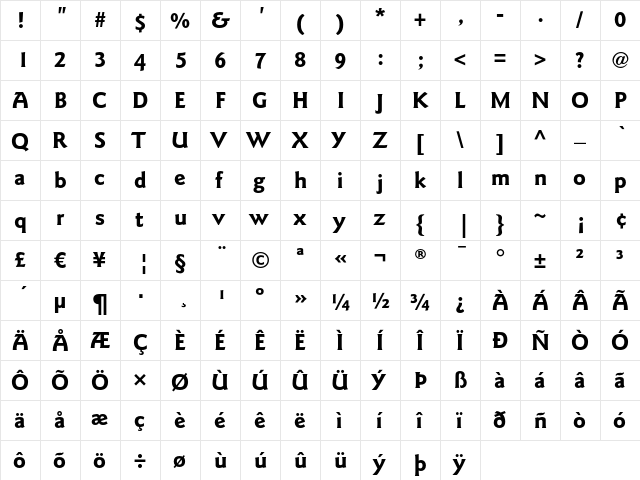
ITC Goudy Sans LT Bold
Design Context for ITC Goudy Sans LT Typeface
ITC Goudy Sans LT takes a measured approach to typography — its balanced proportions and neutral character make it a reliable workhorse for both digital and print work. The heavy weight commands attention and anchors typographic hierarchies.